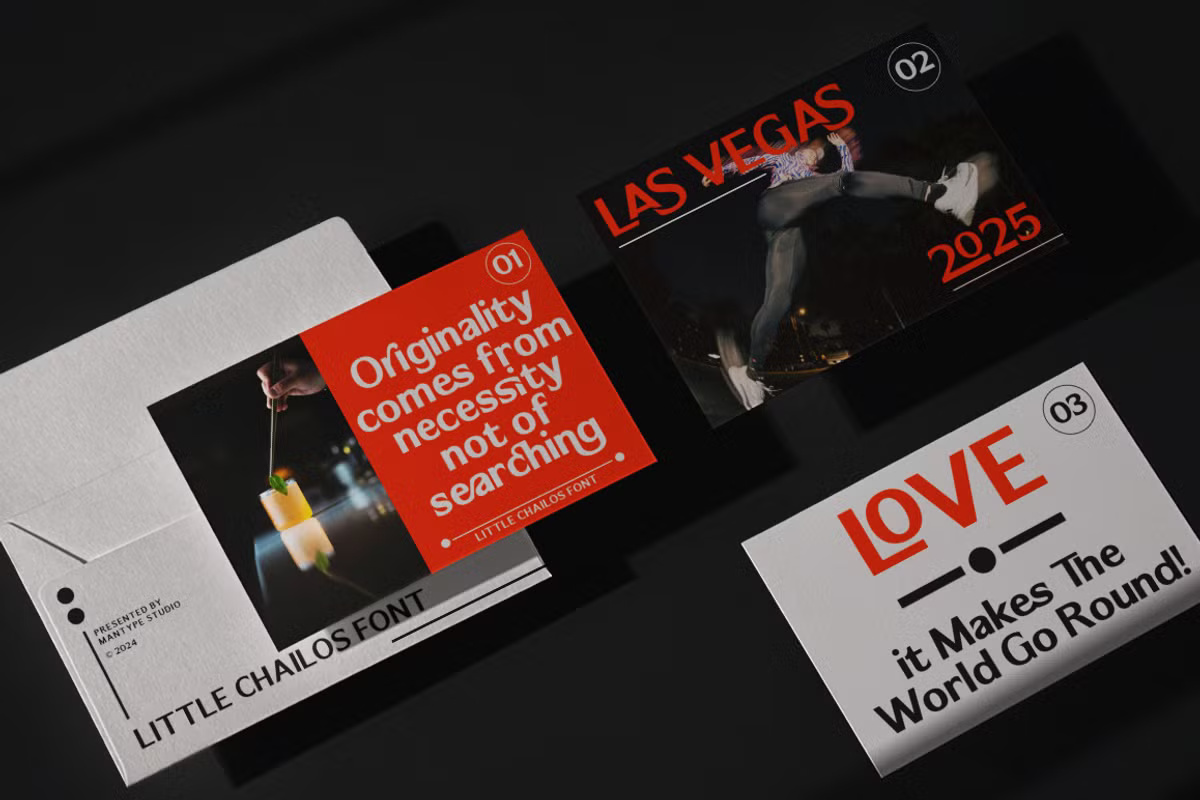
Little Chailos Font
Little Chailos is a contemporary sans-serif typeface with a distinctive, connected style, high contrast, and a light, elegant appearance. It is perfect for feminine logos, fashion headlines, editorial designs, branding, apparel, packaging, magazines, advertisements, t-shirts, postcards, and more.
This font is PUA-encoded, allowing easy access to all glyphs and stylistic strokes. Little Chailos Sans includes a complete character set: uppercase and lowercase letters, automatic ligatures, multilingual support, numbers, and punctuation.